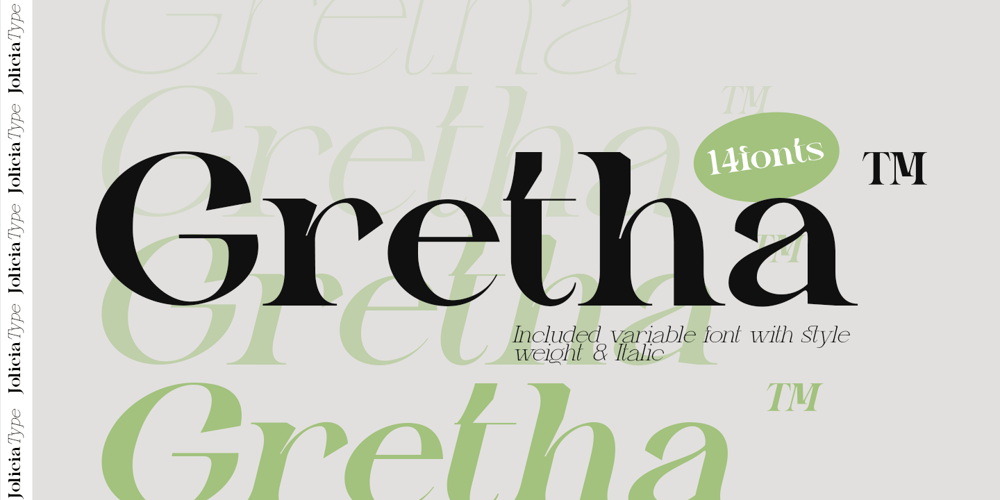
Gretha Font Family was designed by Laire Banyu, Dyaharum Pungki Revitasari and published by Jolicia Type. Gretha contains 16 styles and family package options. Gretha is a modern display serif, font with a strong and charismatic styleThis font is a variable typeface for weight By using the variable sliders in your design software you have a range of weight options in compatible software like Adobe Illustrator. Play around with individual letters to give your type a unique look. Included in this family are alternate characters to add even more styling options.Features:- Multilinguale- Total 408 Glyphs- Ligatures- Alternates- PUA Encoded- Font Family totals 14 fonts- Variable font Language Support :Afrikaans Albanian Asu Basque Bemba Bena Breton Catalan Chiga Colognian Cornish Croatian Czech Danish Dutch Embu English Esperanto Estonian Faroese Filipino Finnish French Friulian Galician German Gusii Hungarian Indonesian Irish Italian Kabuverdianu Kalaallisut Kalenjin Kamba Kikuyu Kinyarwanda Latvian Lithuanian Lower Sorbian Luo Luxembourgish Luyia Machame Makhuwa-Meetto Makonde Malagasy Maltese Manx Meru Morisyen North Ndebele Norwegian Bokmål Norwegian Nynorsk Nyankole Oromo Polish Portuguese Quechua Romanian Romansh Rombo Rundi Rwa Samburu Sango Sangu Scottish Gaelic Sena Serbian Shambala Shona Slovak Soga Somali Spanish Swahili Swedish Swiss German Taita Teso Turkish Upper Sorbian Uzbek (Latin) Volapük Vunjo Walser Zulu